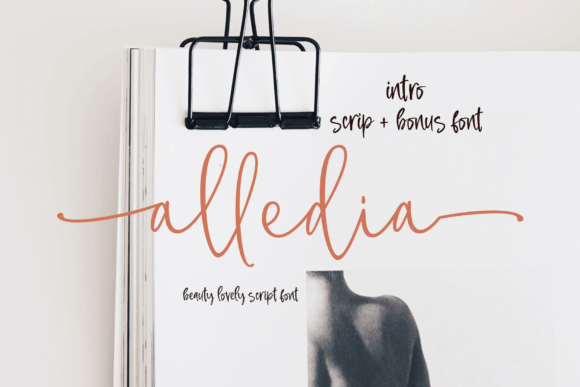
Adorn your designs with Alledia, a resplendent calligraphy typeface born from the creative vision of Meutuwah. Its delicate strokes and graceful curves lend an air of sophistication and elegance to any project. Whether you're crafting captivating logos, enchanting wedding invitations, or designing eye-catching t-shirts, Alledia is the perfect choice.
With its versatile nature, Alledia effortlessly adapts to a myriad of design endeavors. Its exquisite letterforms bring a touch of charm to headings, adding visual interest to your presentations. Elevate your signage and labels with Alledia's distinct character, ensuring your messages stand out from the crowd. Its timeless beauty shines in news publications, posters, and badges, leaving a lasting impression on your audience.
Unleash your creativity and let Alledia guide you as you weave culinary tales on your food blog. Its enchanting allure is sure to captivate your readers, drawing them into your culinary adventures. Alledia's delicate swashes add a touch of artistry to your recipes, enticing readers to embark on a taste bud-tingling journey.
Alledia isn't just a font; it's an experience that transforms your designs into works of art. Its enchanting aura breathes life into your creations, evoking emotions and connecting with your audience on a deeper level. Experience the transformative power of Alledia and elevate your designs to new heights of elegance and charm.